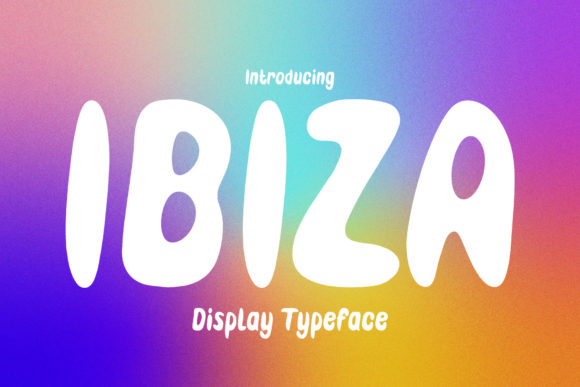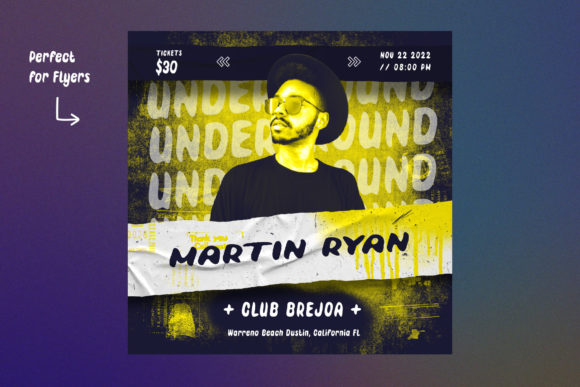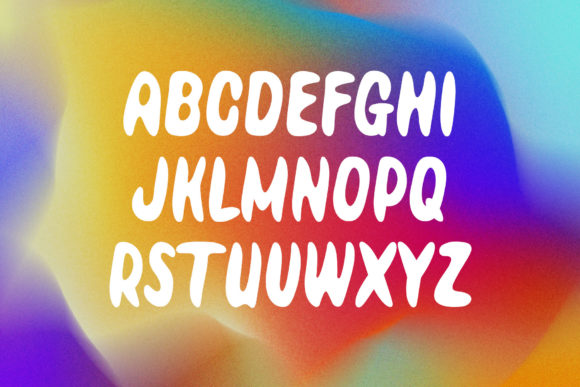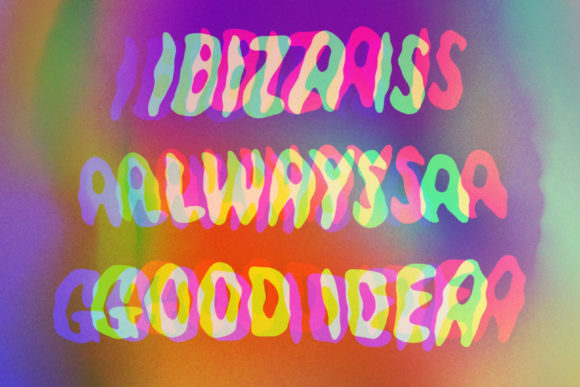
Ibiza Font: A Psychedelic Display Font for Groovy Social Media Designs
About the Ibiza Font
Introducing the Ibiza Font, a beautifully crafted typeface designed to elevate your creative projects. Ibiza is a psychedelic hand-drawn display font. It can be easily matched to an incredibly wide range of projects, from flyers, posters, and social media to children books, t-shirts, ad much more. Its smooth rounded corners allow the font to be legible even if stretched out.
Ibiza’s playful, slightly psychedelic nature makes it ideal for projects needing a fun, youthful feel. It excels in headlines, posters, and branding for products targeting a younger demographic, such as clothing lines, music festivals, or children’s products. Avoid using it for body text or UI elements; its hand-drawn quality reduces legibility in smaller sizes or extended passages.
Pairing Ibiza with a clean sans-serif like Open Sans for body copy creates a strong contrast, balancing its whimsical energy. For a more sophisticated look, consider a classic serif font such as Garamond or a geometric sans-serif like Futura. These pairings provide structure and readability, allowing Ibiza’s unique character to shine in display applications.
The font’s overall personality is undeniably bold and expressive, yet retains a friendly approachability due to its rounded forms. This makes it versatile for projects needing a balance between playful energy and visual appeal.
Ibiza Font Usage Examples